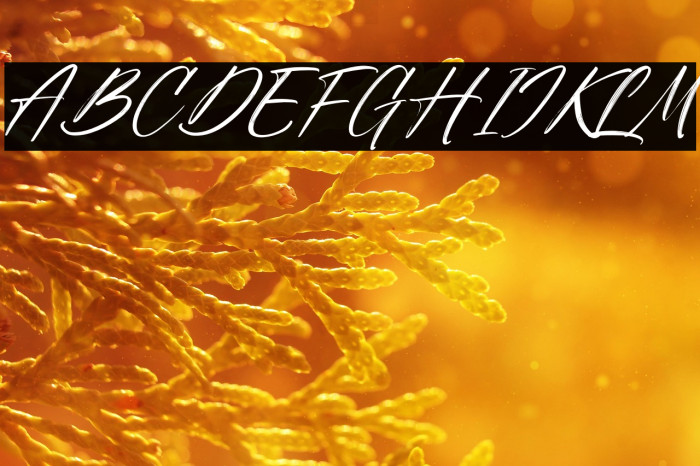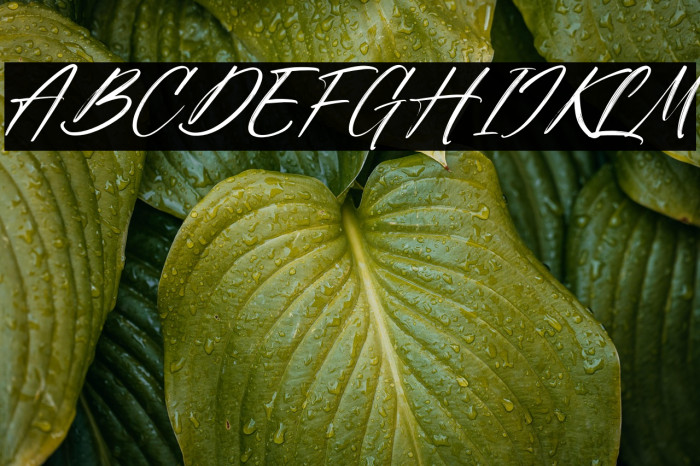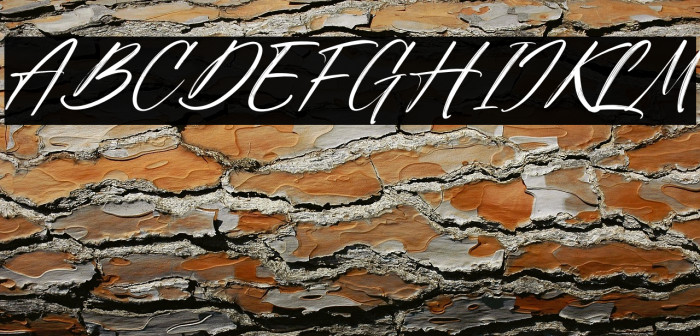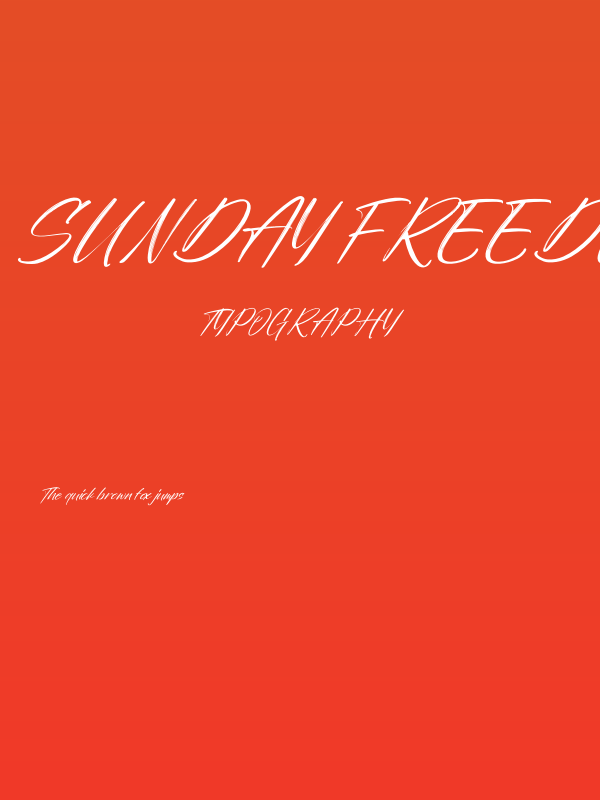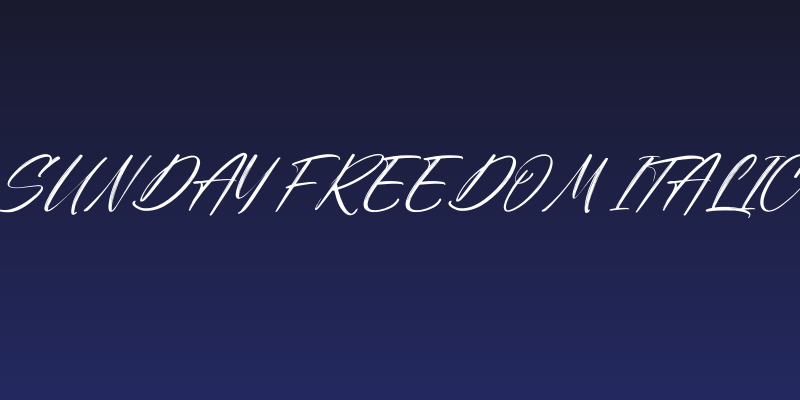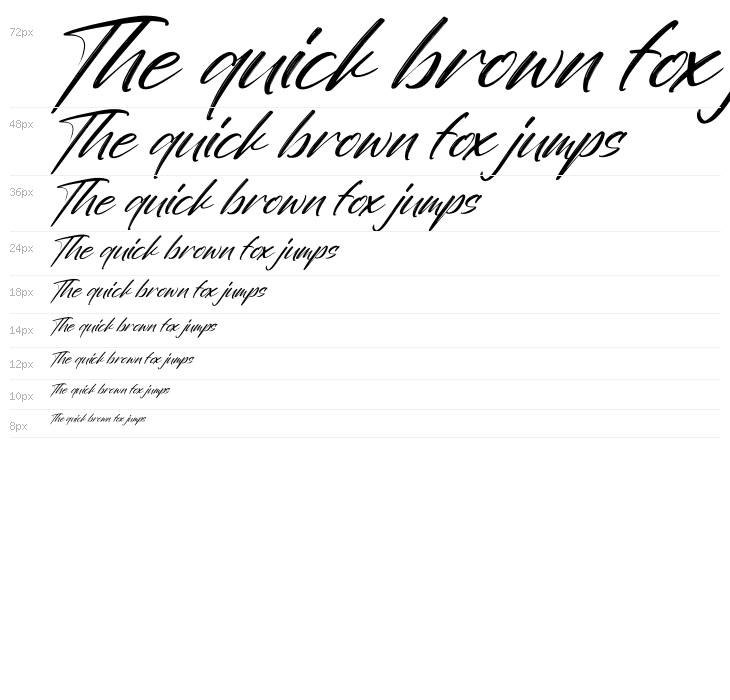
Sunday Freedom Italic Font
Sunday Freedom Italic Description
This font exudes a dynamic and expressive style, characterized by its flowing, cursive script. The letters are elegantly slanted, giving a sense of motion and fluidity. Each character is crafted with a consistent stroke width, maintaining a harmonious balance throughout. The uppercase letters are bold and prominent, while the lowercase letters maintain a graceful continuity. The numerals and special characters are designed to complement the overall aesthetic, ensuring versatility across various applications. This font is ideal for projects that require a personal touch, such as invitations, greeting cards, and artistic branding.